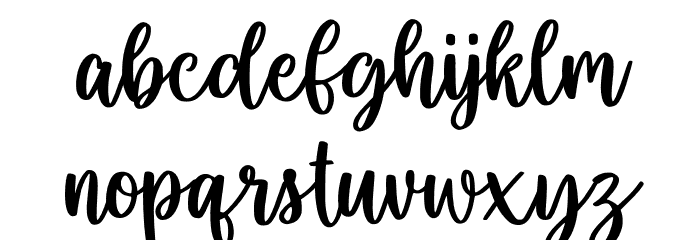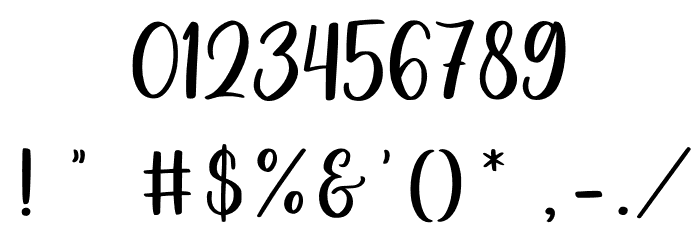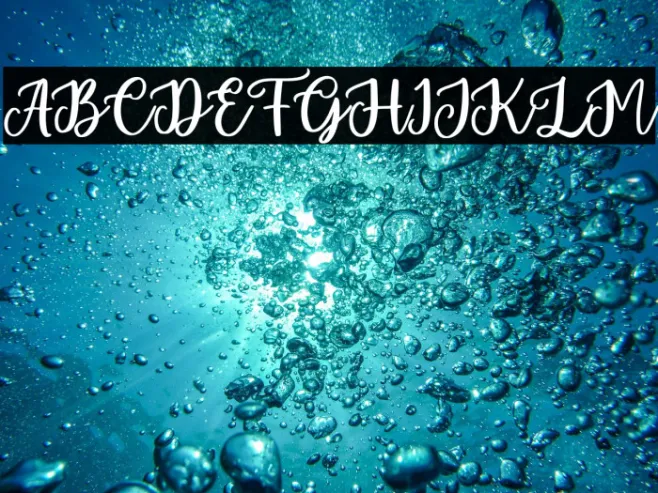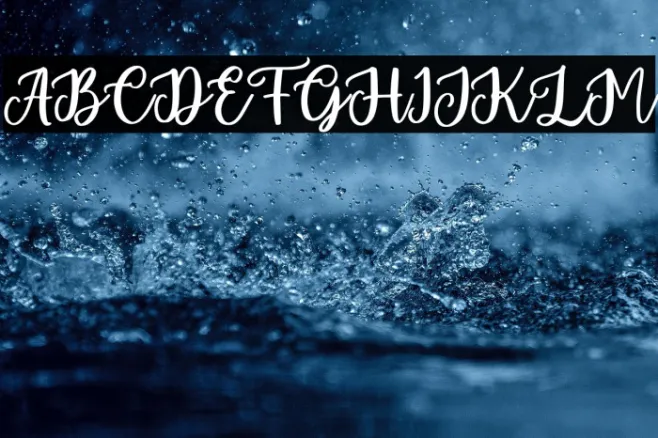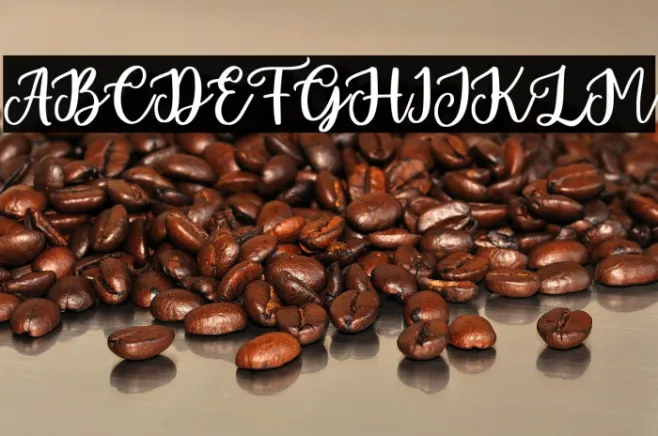
Golden Tale Font
This font features a flowing, cursive style with elegant loops and swirls, giving it a sophisticated and artistic appearance. The uppercase letters are particularly ornate, with each character displaying unique flourishes that enhance its decorative appeal. The lowercase letters maintain a consistent style, offering a smooth and connected look that mimics natural handwriting. Numbers and special characters are designed to complement the overall aesthetic, ensuring a cohesive appearance across all text. The font's design is both stylish and readable, making it suitable for a variety of creative applications.
A decorative cursive font with elegant loops and swirls.
- Font: Golden Tale
- Proposed Projects: Ideal for wedding invitations, greeting cards, branding projects, and elegant logos.
- Category: Script
- Use Case: Logos, Invitations, Greeting Cards